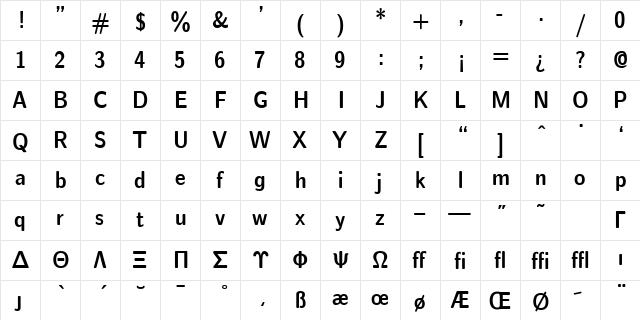
cmssdc10 Regular
Design Context for cmssdc10 Typeface
cmssdc10 is a composed and adaptable typeface that performs quietly and consistently across a wide range of design contexts.